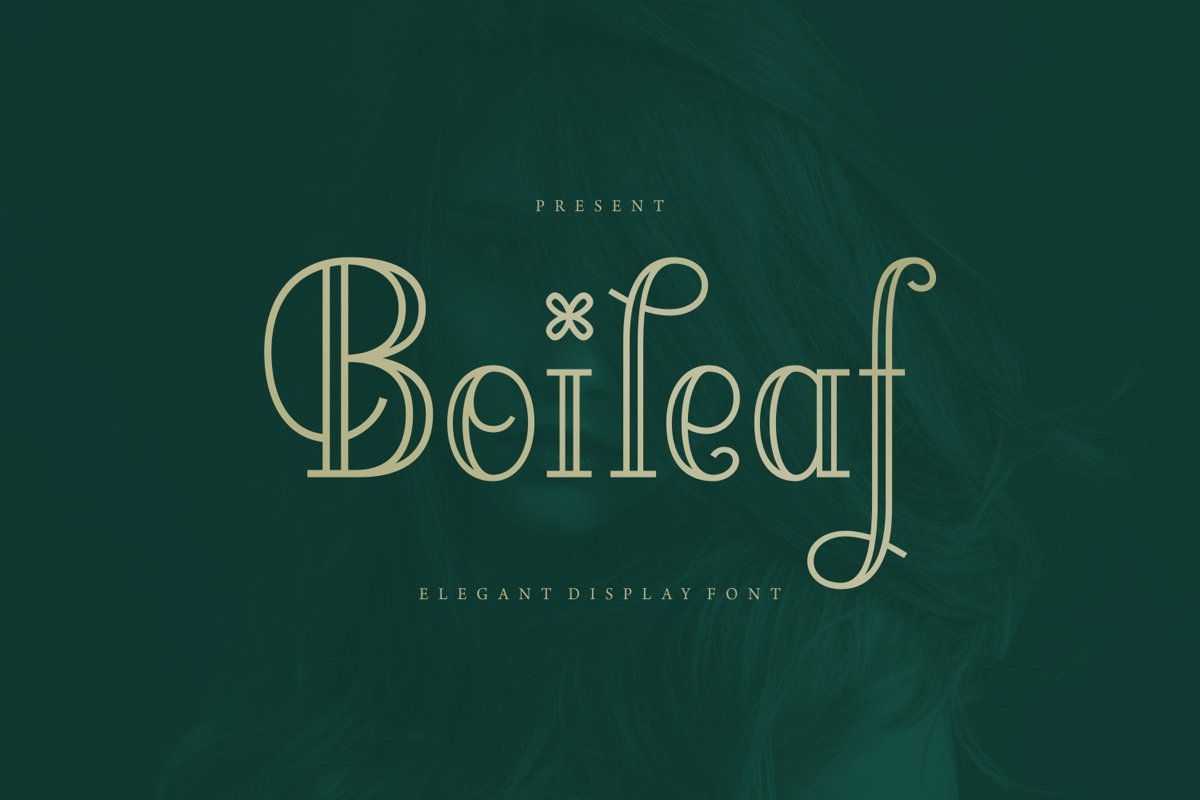
Boileaf is a stylish san serif font come with elegant themes. This font create with beautiful swash to make looks modern. It matches applies in some designs such as the logotype, brand, packaging, quotes, poster, shirt, book, wedding invitation and more custom design. The features uppercase, lowercase, numeral, punctuation & symbol, multilingual support, PUA encoded (fully accessible without additional design software).